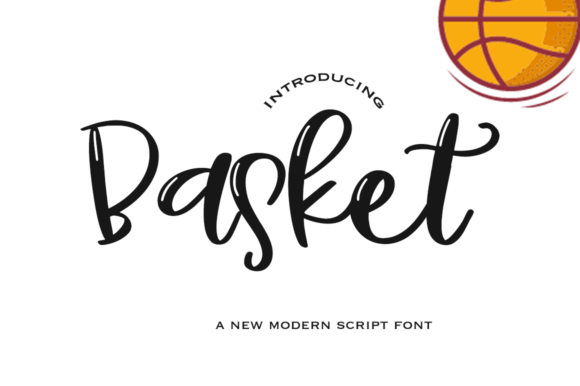
Step into the world of Basket Font and let your creativity dance on the web. Bask in the beauty of this bouncy yet elegant script calligraphy font, crafted with precision and flair by the talented IZKcreative.
With Basket Font under your fingertips, you're not just downloading a font; you're acquiring a visual symphony that will captivate your audience and leave them spellbound.
Basket Font isn't just a font; it's an experience. It's the perfect vehicle to express your individuality and project a captivating image that resonates with your audience.
Adorn your wedding invitations with the finesse of Basket Font, and watch as your guests are mesmerized by the elegance. Create eye-catching posters for your business that will draw attention like a magnet, leaving a lasting impression on potential customers. Unleash your creativity in designing personalized stickers that add a touch of charm to your products.
The possibilities are infinite with Basket Font. Whether you're designing a birthday card that radiates joy or crafting a t-shirt design that exudes individuality, this font will elevate your creations to new heights.
Don't settle for ordinary fonts that blend into the background. Choose Basket Font and let your designs stand out from the crowd. Make a statement, leave a lasting impression, and captivate your audience with every stroke of this exceptional font.